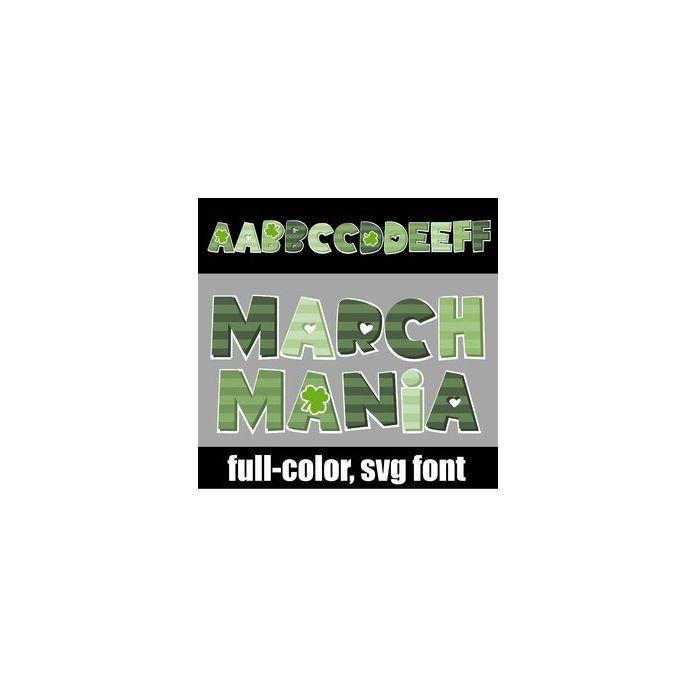
This full-color font feature stripes in a variety of greens. There is an alt upper and lowercase with additional colors that you can access through Silhouette's glyph map.